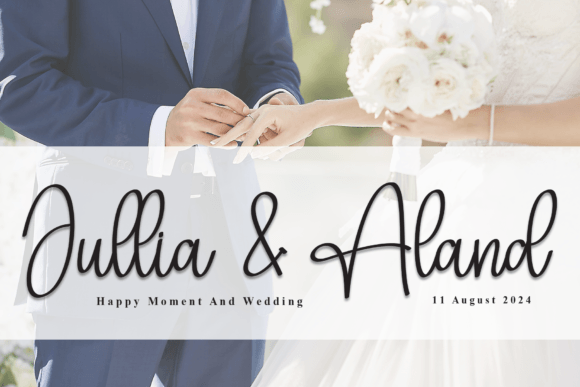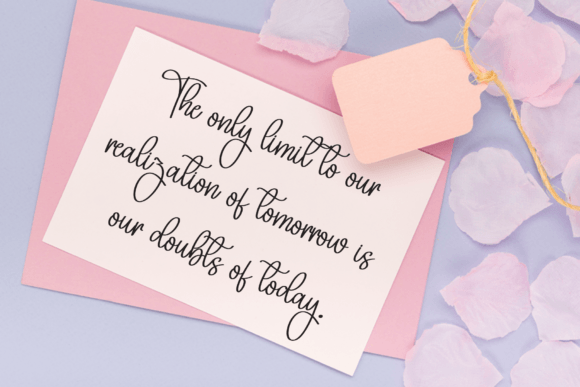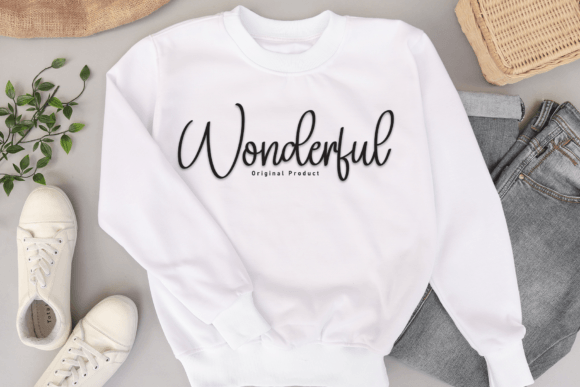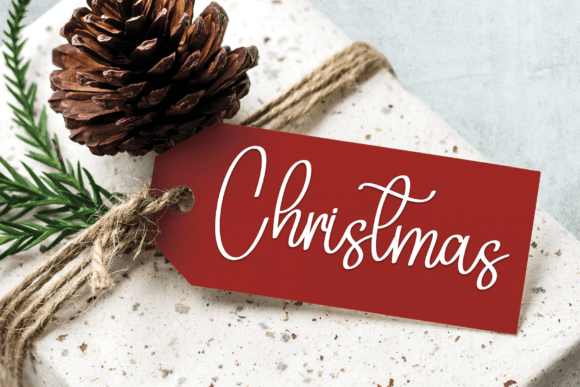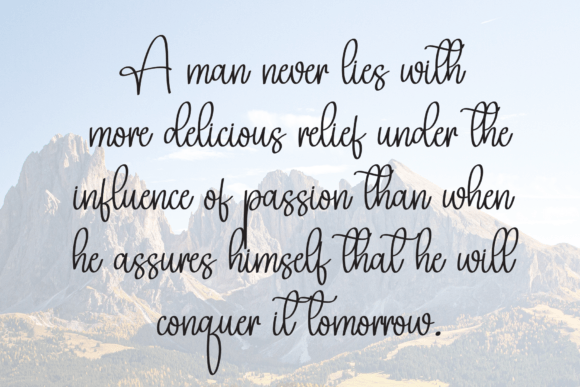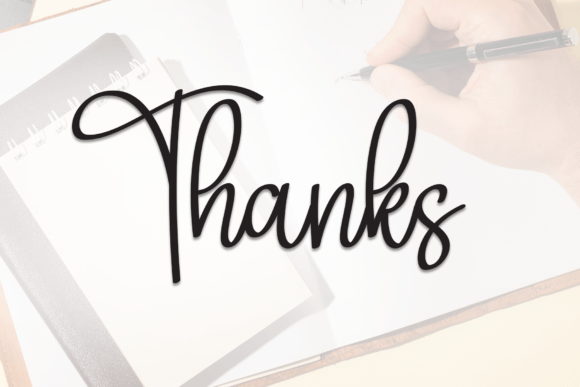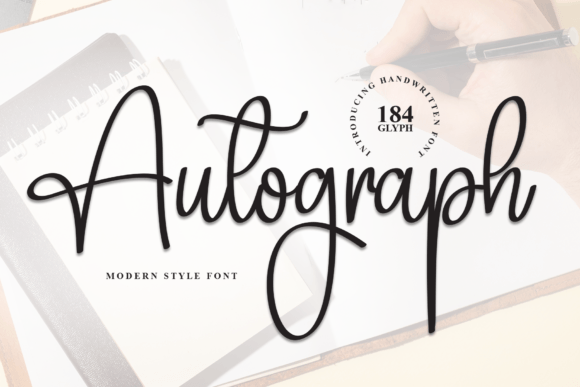
Introducing Autograph Font: The Sweet and Friendly Handwritten Font
Are you a designer or crafter looking for a font that can add a personal touch to your projects? Look no further than Autograph Font, a sweet and friendly handwritten font that’s perfect for a wide range of designs. With its natural and unique style, Autograph Font is incredibly versatile and can be used in various creative projects, from digital designs to handmade crafts.
The Characteristics of Autograph Font
Autograph Font is a handwritten font that exudes warmth and friendliness. Its natural and unique style makes it stand out from other fonts, and its sweetness is sure to capture the hearts of your audience. The font’s characteristics include:
- Handwritten style: Autograph Font has a genuine handwritten look that’s perfect for creating personal and intimate designs.
- Natural flow: The font’s natural flow and rhythm make it easy to read and understand.
- Unique style: Autograph Font’s unique style sets it apart from other fonts, making it perfect for designers who want to create distinctive designs.
The Versatility of Autograph Font
One of the best things about Autograph Font is its versatility. The font can be used in a wide range of designs, including:
- Digital designs: Autograph Font is perfect for digital designs, such as social media graphics, blog posts, and website headers.
- Handmade crafts: The font is also great for handmade crafts, such as card making, scrapbooking, and journaling.
- Branding and packaging: Autograph Font can be used in branding and packaging designs to add a personal touch.
Why Choose Autograph Font?
So, why choose Autograph Font for your designs? Here are just a few reasons:
- Easy to read: Autograph Font is easy to read, making it perfect for designs that require a clear and concise message.
- Unique style: The font’s unique style sets it apart from other fonts, making it perfect for designers who want to create distinctive designs.
- Flexibility: Autograph Font can be used in a wide range of designs, from digital designs to handmade crafts.
Tips for Using Autograph Font
Here are a few tips for using Autograph Font in your designs:
- Pair with other fonts: Autograph Font can be paired with other fonts to create a unique and interesting design.
- Experiment with colors: The font looks great in a variety of colors, so don’t be afraid to experiment and find the perfect color for your design.
- Use in combination with images: Autograph Font can be used in combination with images to create a visually appealing design.
In conclusion, Autograph Font is a sweet and friendly handwritten font that’s perfect for designers and crafters who want to add a personal touch to their projects. With its natural and unique style, Autograph Font is incredibly versatile and can be used in a wide range of designs. Whether you’re creating digital designs or handmade crafts, Autograph Font is sure to be a great choice. So why not give it a try and see what amazing designs you can create?
- What type of font is Autograph Font?: Autograph Font is a handwritten font.